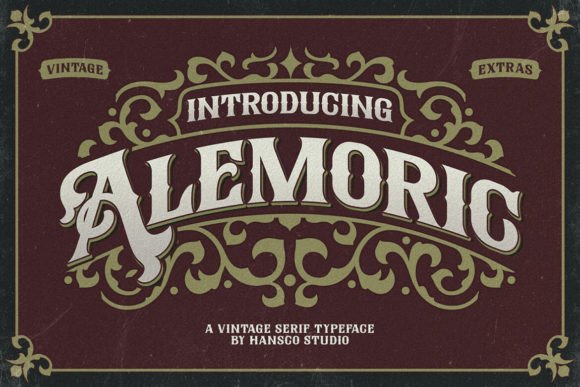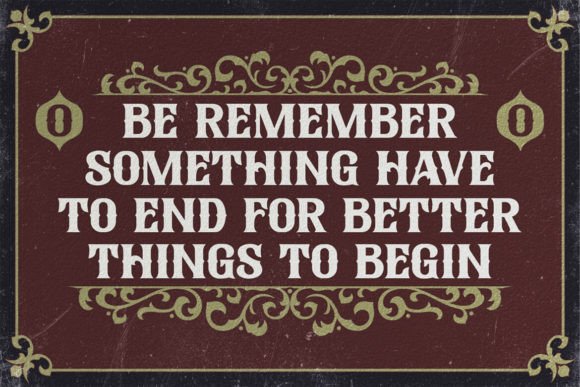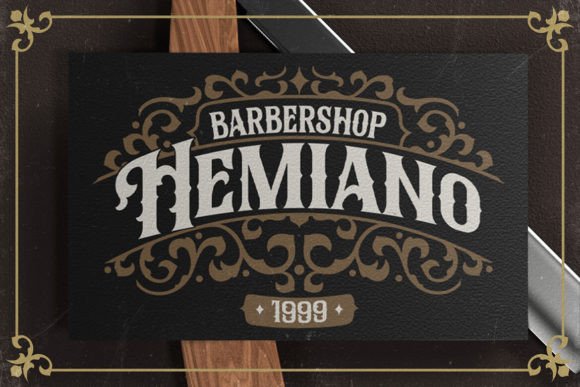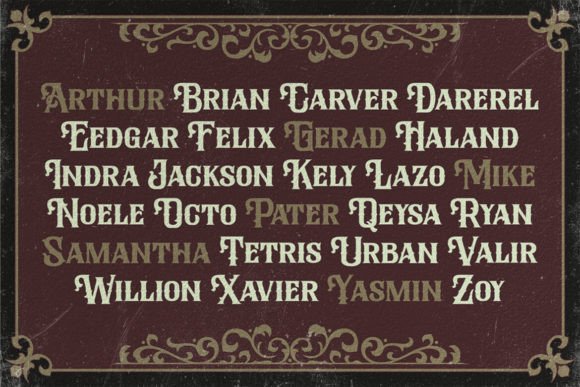
Alemoric Font: Rustic Vintage Serif for Logo Design & Branding
About the Alemoric Font
Unleash your creativity with Alemoric Font, a versatile font perfect for a wide range of applications. Alemoric is a Vintage typeface font, it will add an old-rustic charm to any design project. This collection of font is perfect for everything your project with vintage, retro, wild or organic style. It was made with the intention of being used for product Logo like a Pomade, Coffee, Barber shop or packaging label. It’s great also for branding, logo designs, lettering, logotype, craft, posters and much more.
Alemoric’s strong vintage character makes it ideal for headlines, logos, short text blocks on packaging, and posters requiring a retro feel. It excels in creating a sense of nostalgia and authenticity, particularly for brands focusing on handcrafted goods, coffee shops, or vintage-inspired apparel. Avoid using it for body copy or lengthy text; its distinctive features become visually overwhelming in large amounts.
Pairing Alemoric effectively requires considering its bold, rustic personality. A clean sans-serif like Montserrat or a geometric sans-serif such as Futura would provide a contemporary counterpoint, allowing Alemoric to stand out as a statement element. For a softer contrast, consider a slightly rounded sans-serif font.
For projects emphasizing a more rugged aesthetic, a complementary serif font with similar vintage influences could strengthen the overall theme. Conversely, using a delicate script font would create an unexpected yet stylish juxtaposition.